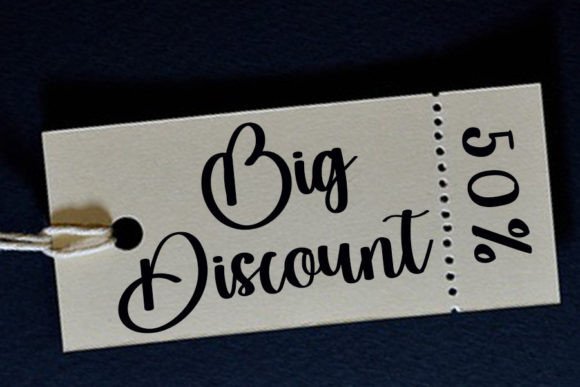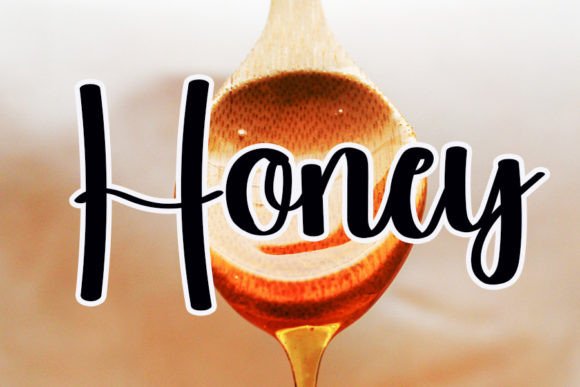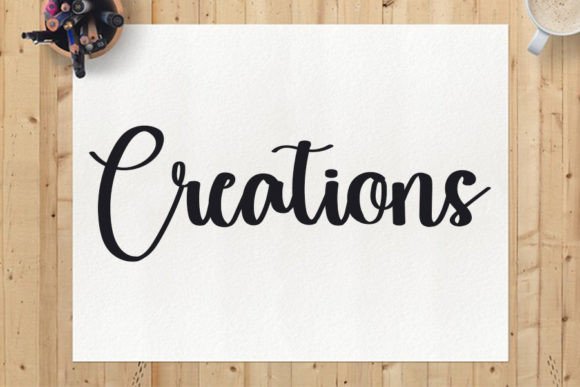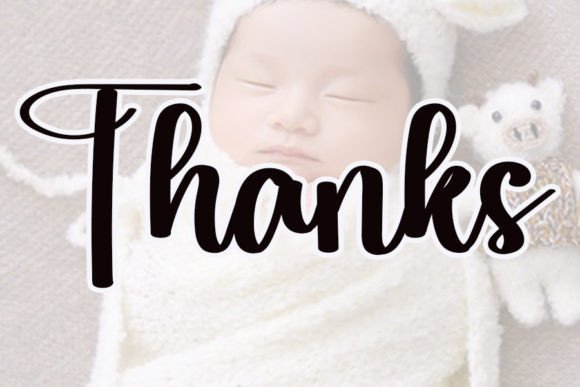
Baby Font: Elevate Your Designs with a Modern Handwritten Style
In the world of typography, a well-crafted font can make all the difference in bringing a design to life. For those seeking a modern handwritten font with a touch of classic elegance, Baby Font is an exceptional choice. This cool handwritten font boasts a spotless form, inspired by the timeless beauty of classic calligraphy. With its balanced and varied strokes, Baby Font is the perfect addition to any design project, offering a fresh and contemporary vibe.
The Inspiration Behind Baby Font
Baby Font draws its inspiration from the art of classic calligraphy, where every stroke and curve is a testament to the beauty of handwritten typography. The font’s creator aimed to capture the essence of this timeless art form, while infusing it with a modern twist. The result is a font that exudes a sense of sophistication and style, making it ideal for a wide range of design applications.
Key Features of Baby Font
So, what sets Baby Font apart from other handwritten fonts? Here are some of its key features:
- Balanced and varied strokes: Baby Font’s strokes are carefully crafted to be neither too thin nor too thick, creating a perfect balance that adds visual interest to any design.
- Modern vibe: With its clean lines and contemporary feel, Baby Font brings a fresh perspective to the world of handwritten typography.
- Spotless form: The font’s spotless form ensures that it remains legible and easy to read, even at smaller sizes.
- Inspired by classic calligraphy: Baby Font’s roots in classic calligraphy give it a timeless quality that will never go out of style.
Why Designers and Crafters Love Baby Font
Baby Font has quickly become a favorite among designers and crafters, and for good reason. Here are just a few reasons why:
- Versatility: Baby Font is incredibly versatile, making it suitable for a wide range of design applications, from branding and packaging to wedding invitations and social media graphics.
- Ease of use: The font’s clean lines and simple structure make it easy to use, even for those who are new to design.
- Emotional connection: Baby Font’s handwritten style creates an emotional connection with the viewer, making it perfect for designs that require a personal touch.
Using Baby Font in Your Designs
So, how can you incorporate Baby Font into your designs? Here are a few ideas to get you started:
- Branding and packaging: Use Baby Font to add a touch of elegance and sophistication to your brand’s packaging and marketing materials.
- Wedding invitations and stationery: Baby Font’s classic, handwritten style makes it perfect for wedding invitations, save-the-dates, and other stationery.
- Social media graphics: Add a personal touch to your social media graphics with Baby Font, which is sure to help your content stand out.
In conclusion, Baby Font is a modern handwritten font that offers a unique blend of classic elegance and contemporary style. With its balanced and varied strokes, spotless form, and inspiration from classic calligraphy, this font is sure to elevate your designs and bring a touch of sophistication to any project. Whether you’re a designer, crafter, or simply someone who appreciates beautiful typography, Baby Font is an exceptional choice that’s sure to impress.